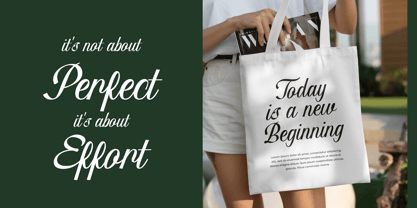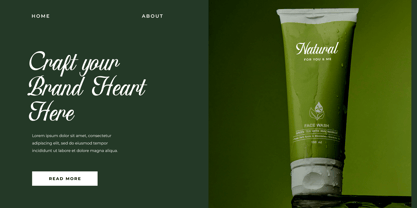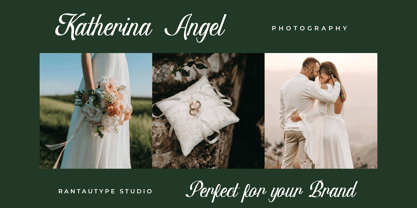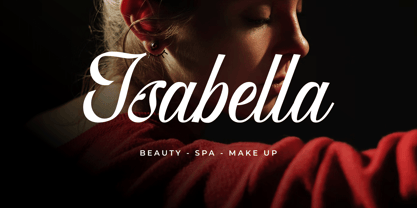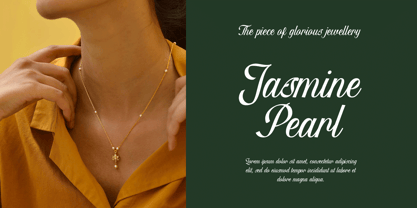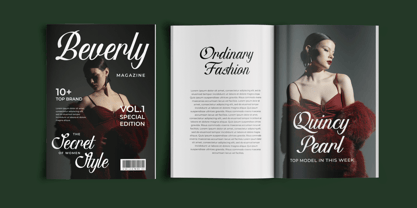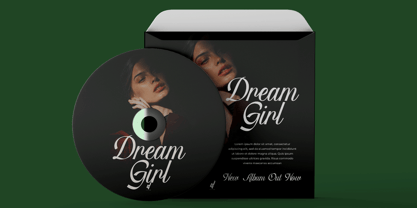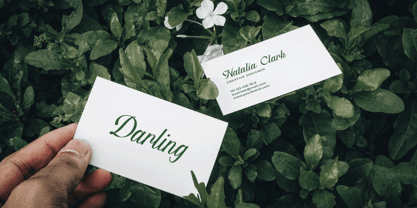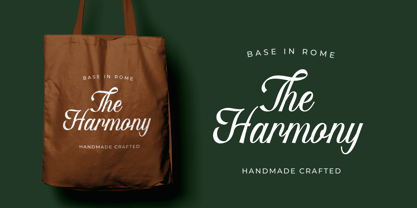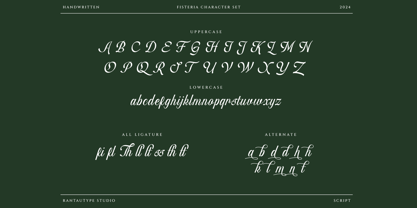
Fisterya
by RantauType
The Fisterya Font Family was designed by Yudi Pratama Chandra and published by RantauType. Fisterya contains 1 styles. More about this family
Fisterya is handwritten script font with elegant character. Fisterya come with beautiful concept and feminity look to make your design project more different and stand out!
Fisterya is a beautiful choice for any creative endeavor, creating, modern, chic, lifestyle design such as logotype, title, cover, branding, invitations, wedding designs, display and magazine, social media posts, advertisements, printed quotes, product packaging, corporate brand, product designs, labels, photography, watermarks, special events and any other project with handwritten touch.
Designers: Yudi Pratama Chandra
Foundry: RantauType